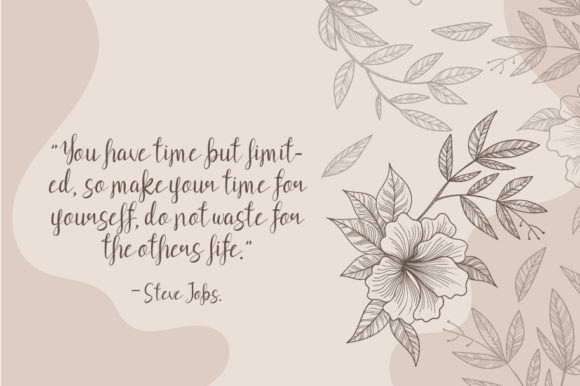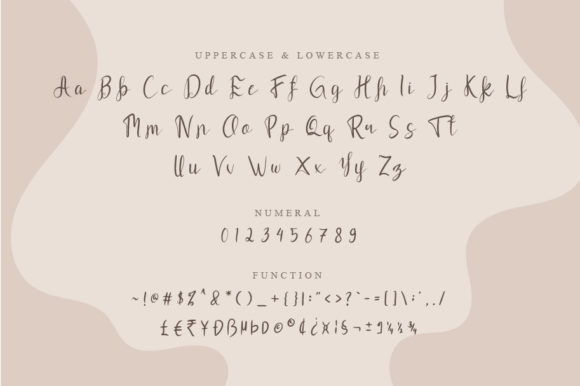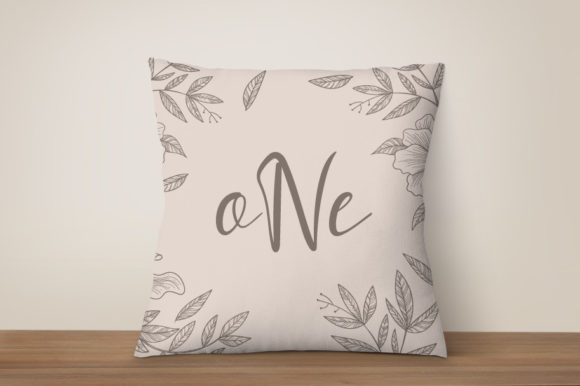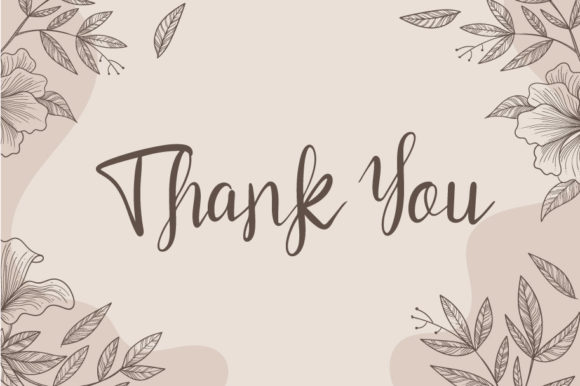
Introduction to Rabofs Font
As a designer, have you ever found yourself stuck in a creative rut, searching for the perfect font to bring your project to life? The moment of inspiration finally hits when you stumble upon a font that’s both elegant and quirky, making all the difference in your design. For many, this moment of magic is thanks to the Rabofs Font, a timeless and beautiful handwritten font that’s quickly become a go-to design resource.
Whether you’re working on a logo, branding, or quote design, the Rabofs Font is a high-quality choice that’s sure to elevate your creative project. With its unique and beautiful touch, every letter comes alive, making it the perfect addition to any design. Plus, with its transparent background, you can easily incorporate it into any design, from digital to print.
Key Features of Rabofs Font
- Transparent background, allowing for seamless integration with any design element or background.
- Comes in a range of sizes, from 12pt to 72pt, making it suitable for various design applications, from small titles to large headlines.
- Designed at a high resolution of 300 DPI, ensuring crisp and clear typography in both print and digital formats.
- Perfect for designers looking for a distinctive and eye-catching font to elevate their creative project.
Honest Review: Rabofs Font
As a designer, I’m always on the lookout for high-quality design resources to enhance my creative projects. The Rabofs Font caught my attention, and I decided to give it a try.
Here are some of the things that work well: ✨
- Unique and modern design aesthetic that can add a touch of sophistication to any project.
- Transparent background, making it easy to overlay on top of other design elements.
However, I did encounter a few limitations: ⚠️
- Limited character set, which may not be suitable for projects that require extensive text.
- No bold or italic font styles available, which can be a drawback for certain design applications.
Overall, I think the Rabofs Font is a solid addition to any designer’s toolkit. While it may have its limitations, its unique design and high-quality files make it a great resource for creative projects. With a little creativity, you can work around its limitations and unlock its full potential.
Use the Rabofs Font as a design resource to create high-quality designs for your creative project. Experiment with different font sizes, colors, and styles to find the perfect combination. Consider using the font in conjunction with other design elements, such as images and graphics, to create a visually appealing design.
The Rabofs Font is a versatile design resource that can be used in a variety of creative projects, including business cards, brochures, and social media graphics. It’s also a great option for creating presentations, posters, and flyers. With its high-quality design and transparent background, the Rabofs Font is a great choice for any design project.